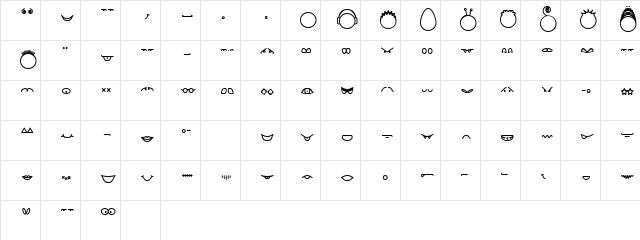
Head-Ding Maker (BRK) Regular
Design Context for Head-Ding Maker (BRK)
Head-Ding Maker (BRK) is a composed and adaptable typeface that performs quietly and consistently across a wide range of design contexts.